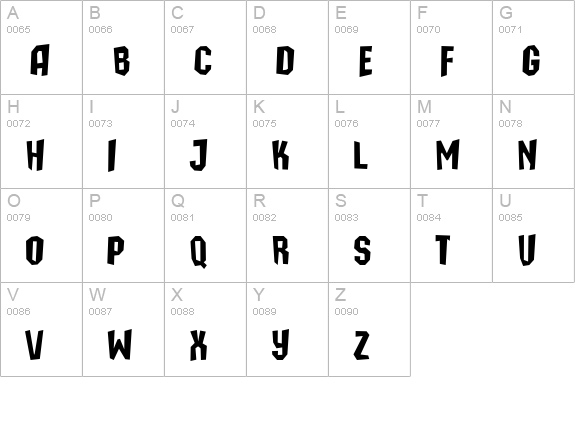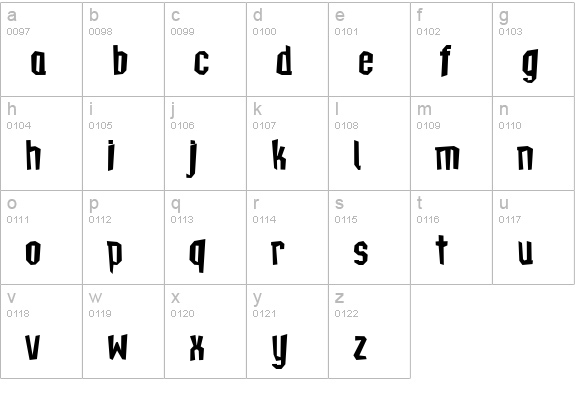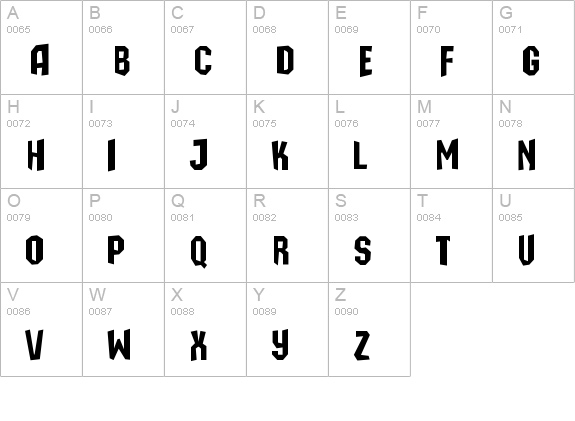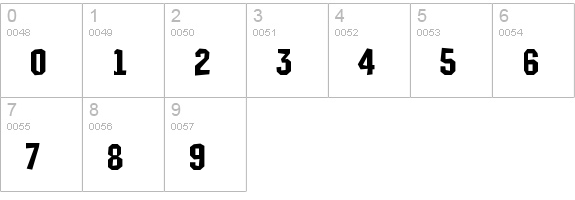
a_TechnicsBrk DemiBold is a sub-bold, structured variant in the a_TechnicsBrk typeface family \xE2\x80\x94 well suited to sub-headlines and emphasised passages.
The TechnicsBrk DemiBold font is a modern and bold typeface that exudes confidence and professionalism. Its sleek and clean design makes it perfect for a wide range of projects, from branding to advertising to editorial design. The thick strokes and sharp angles give this font a strong and dynamic appearance that commands attention. What's even better is that the TechnicsBrk DemiBold font is available for free download at FontsMarket.com. This means you can easily access this high-quality font without any cost, making it an excellent choice for designers looking to add a touch of sophistication to their work. Don't miss out on this fantastic opportunity to elevate your designs with the TechnicsBrk DemiBold font - download it for free today!